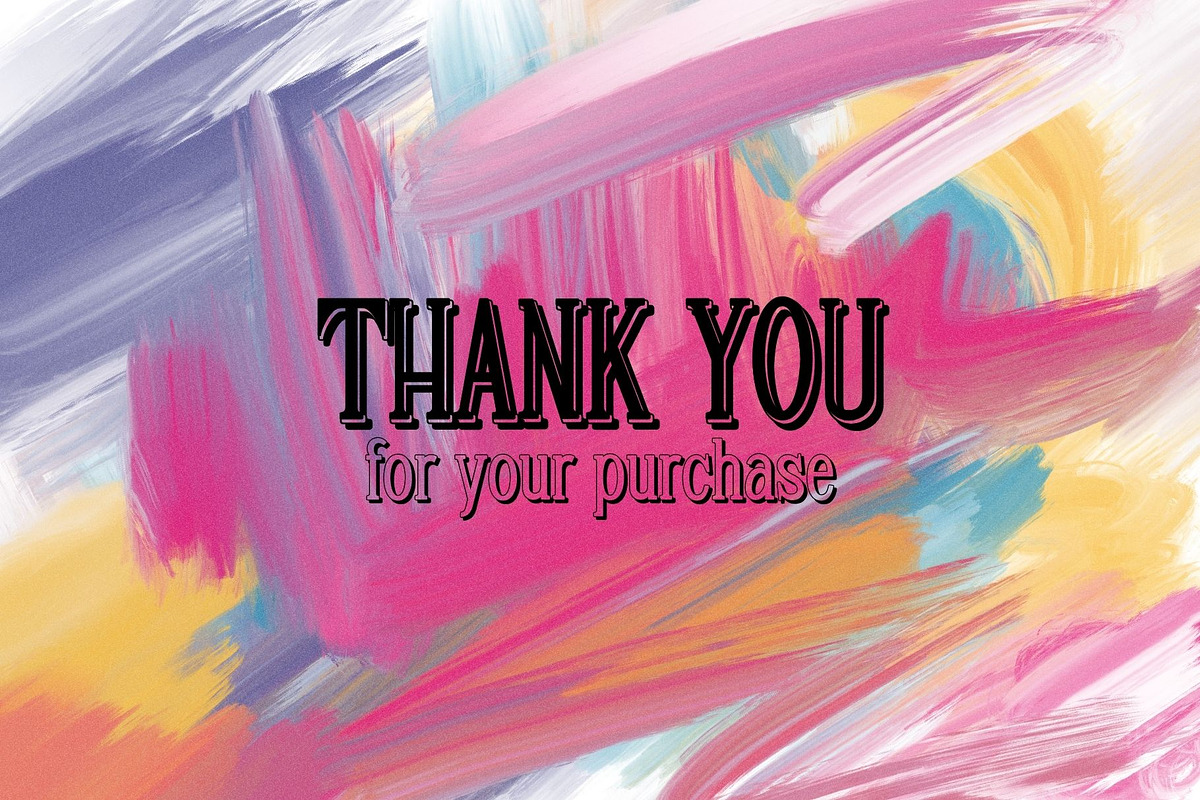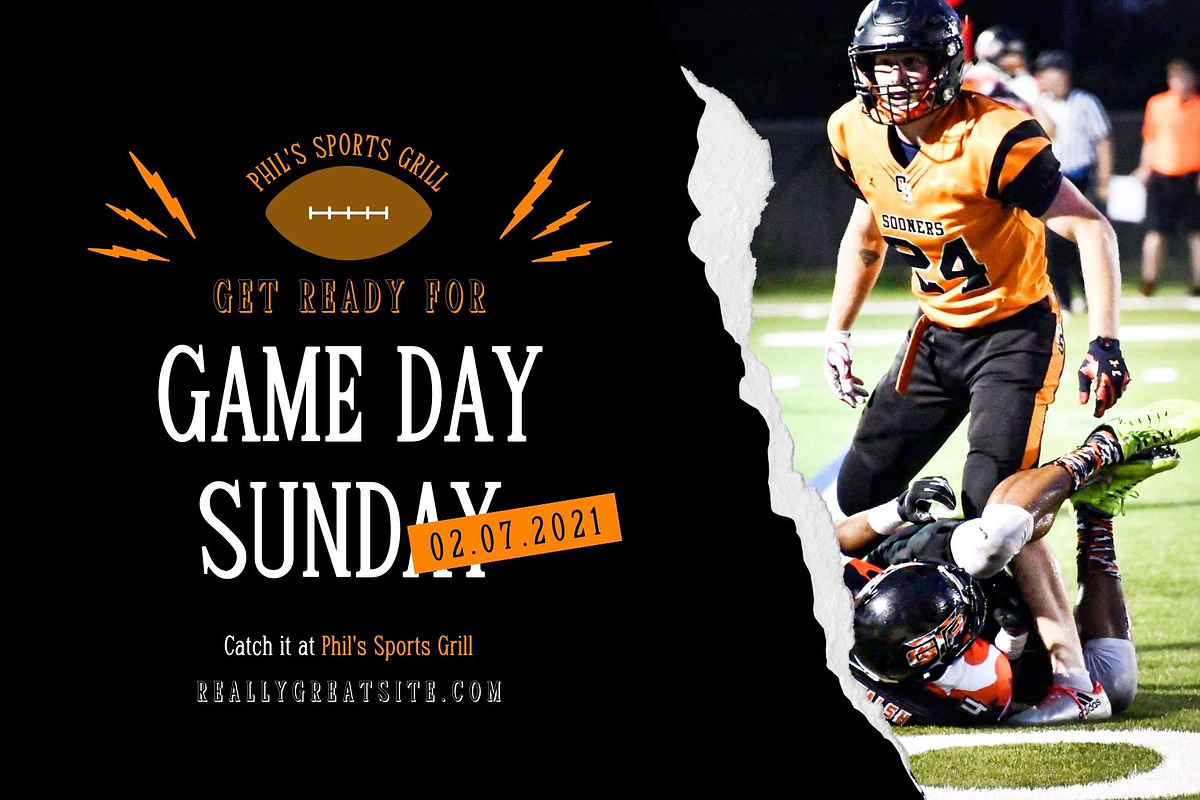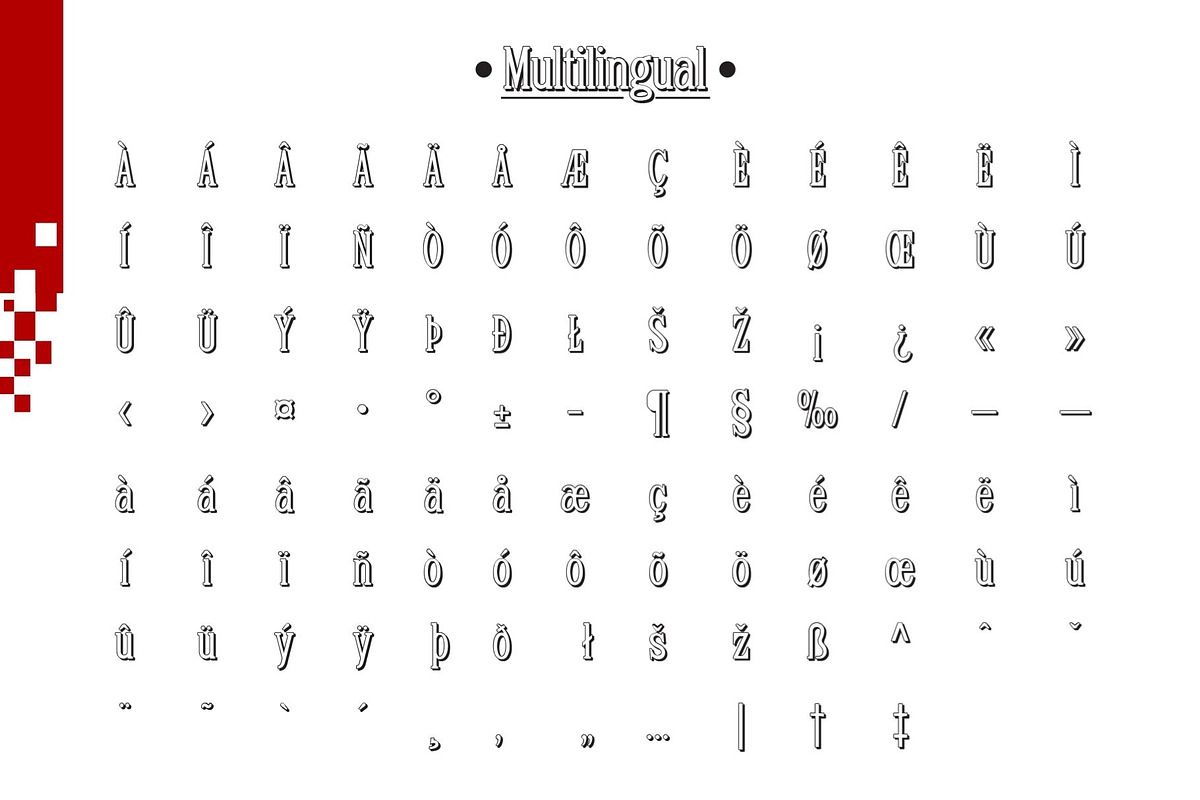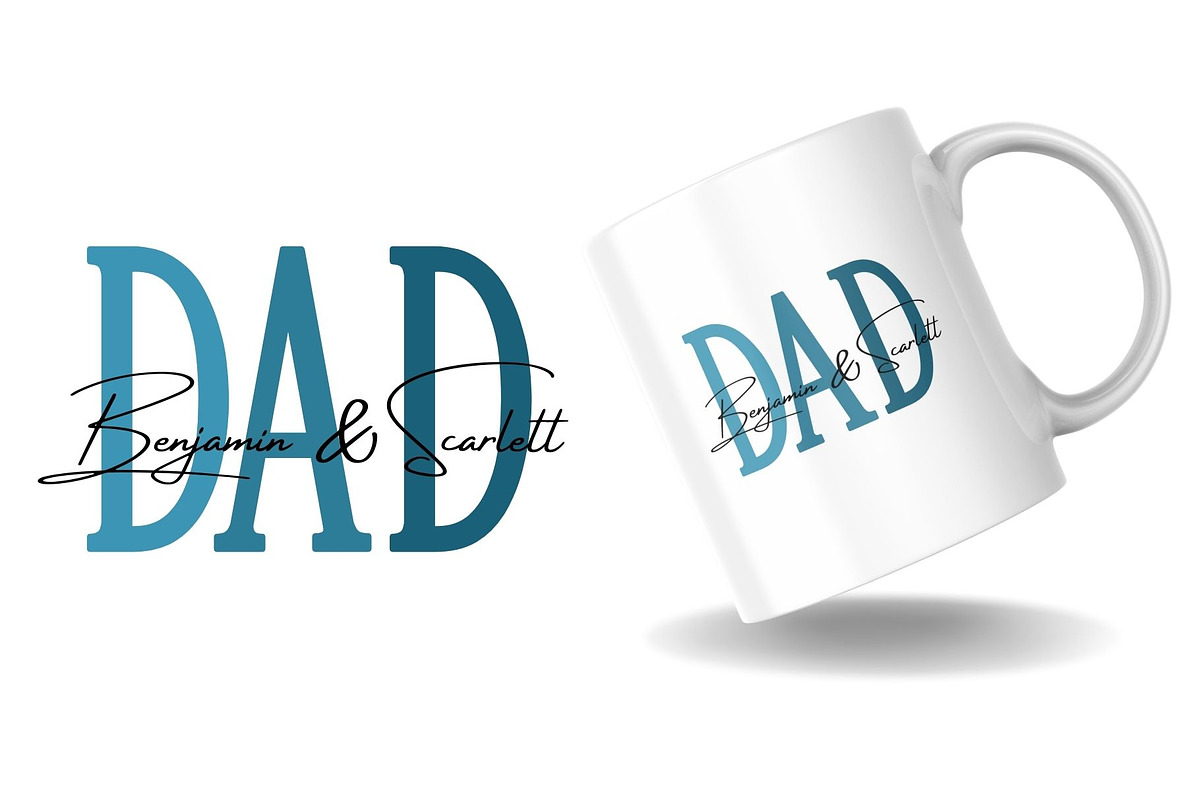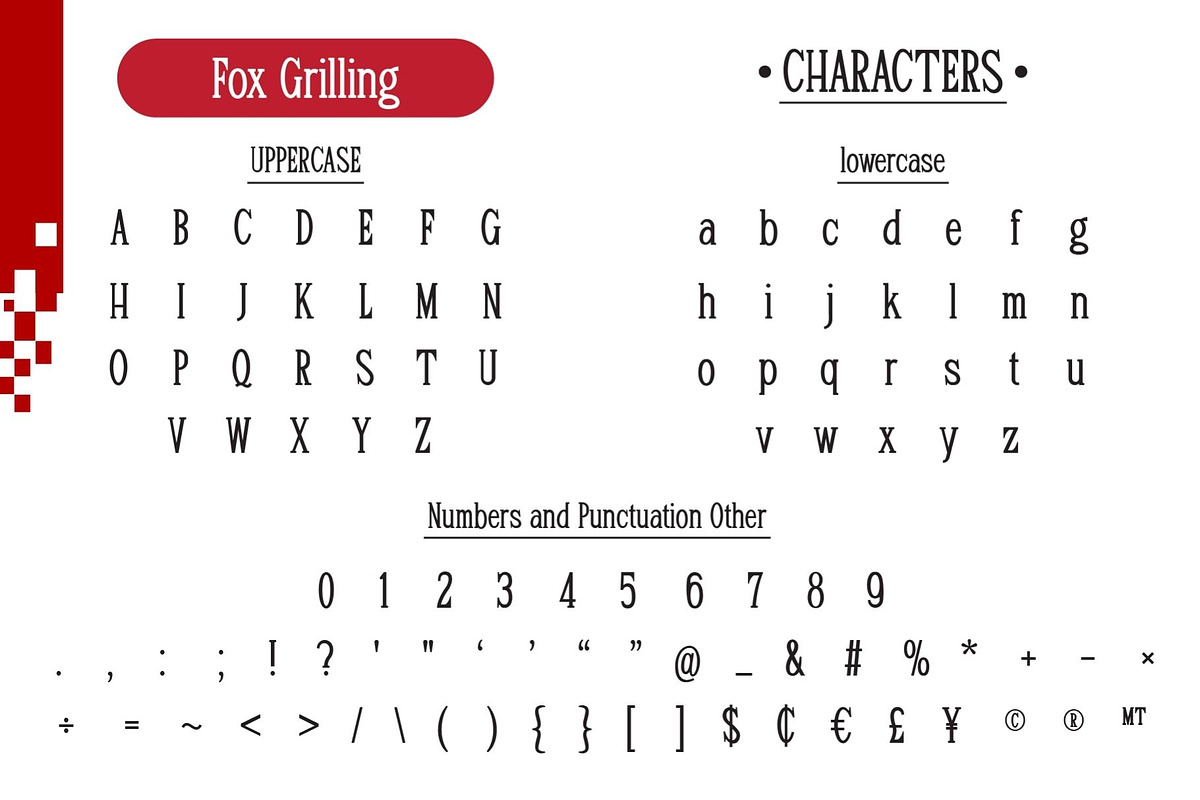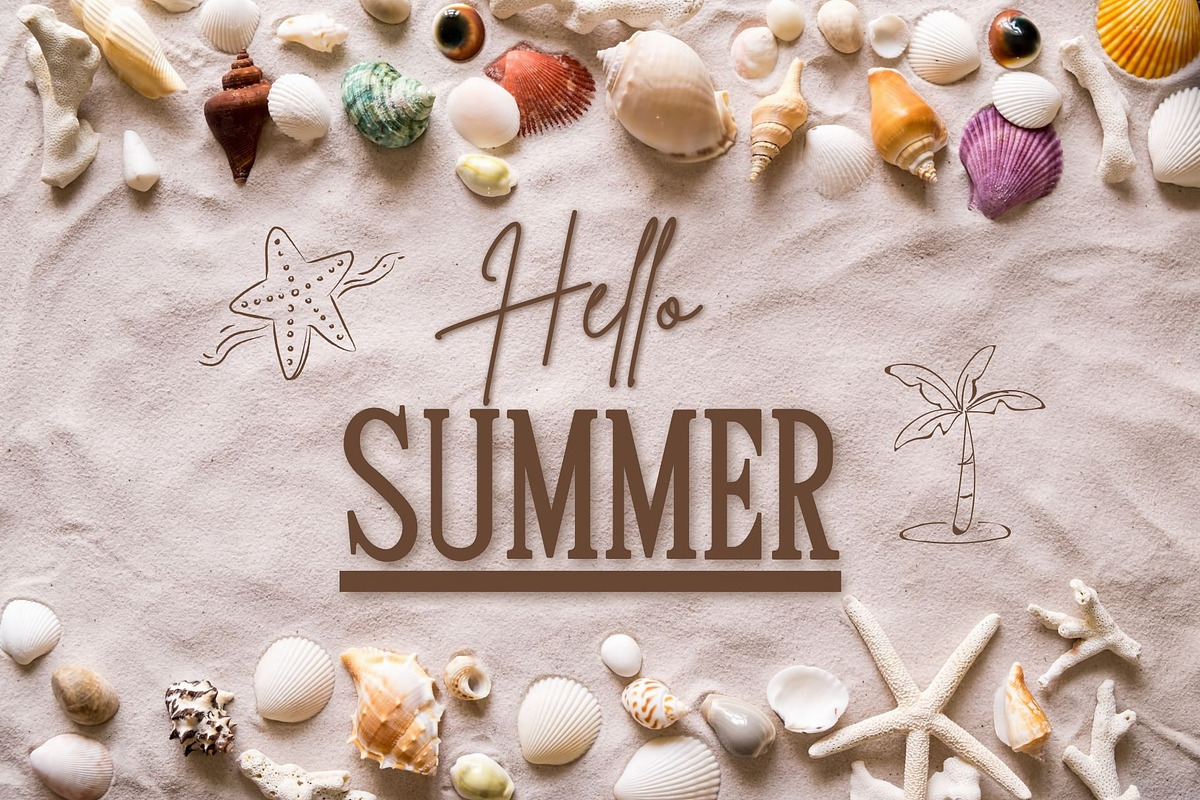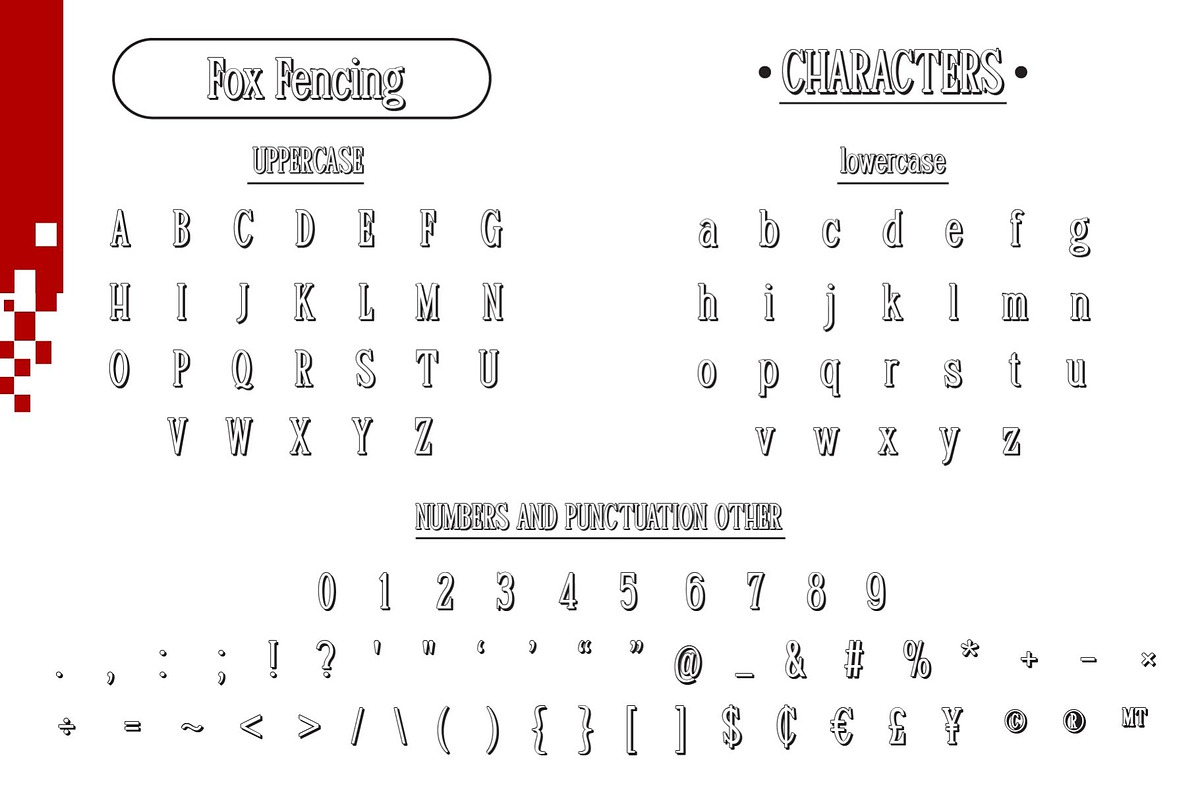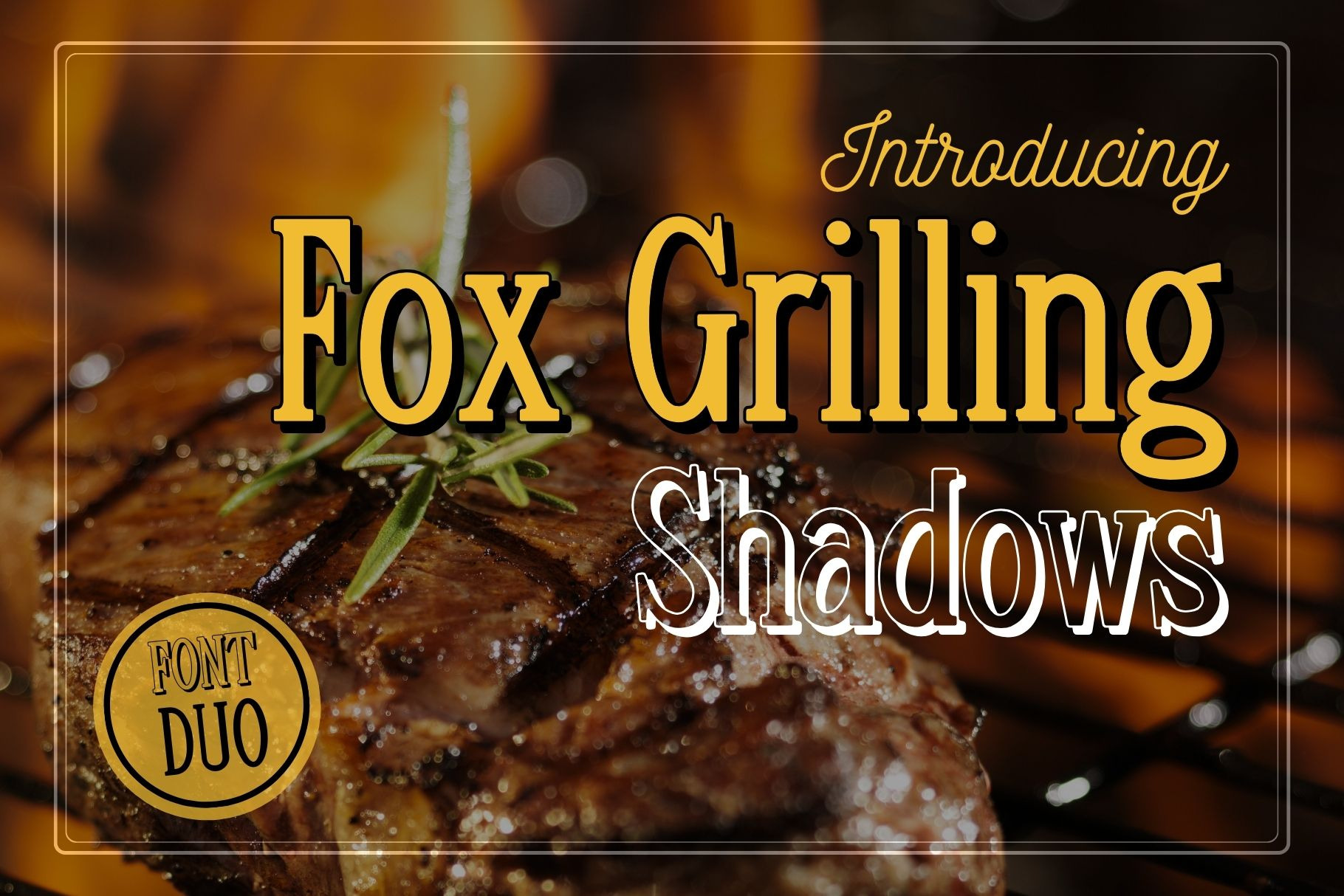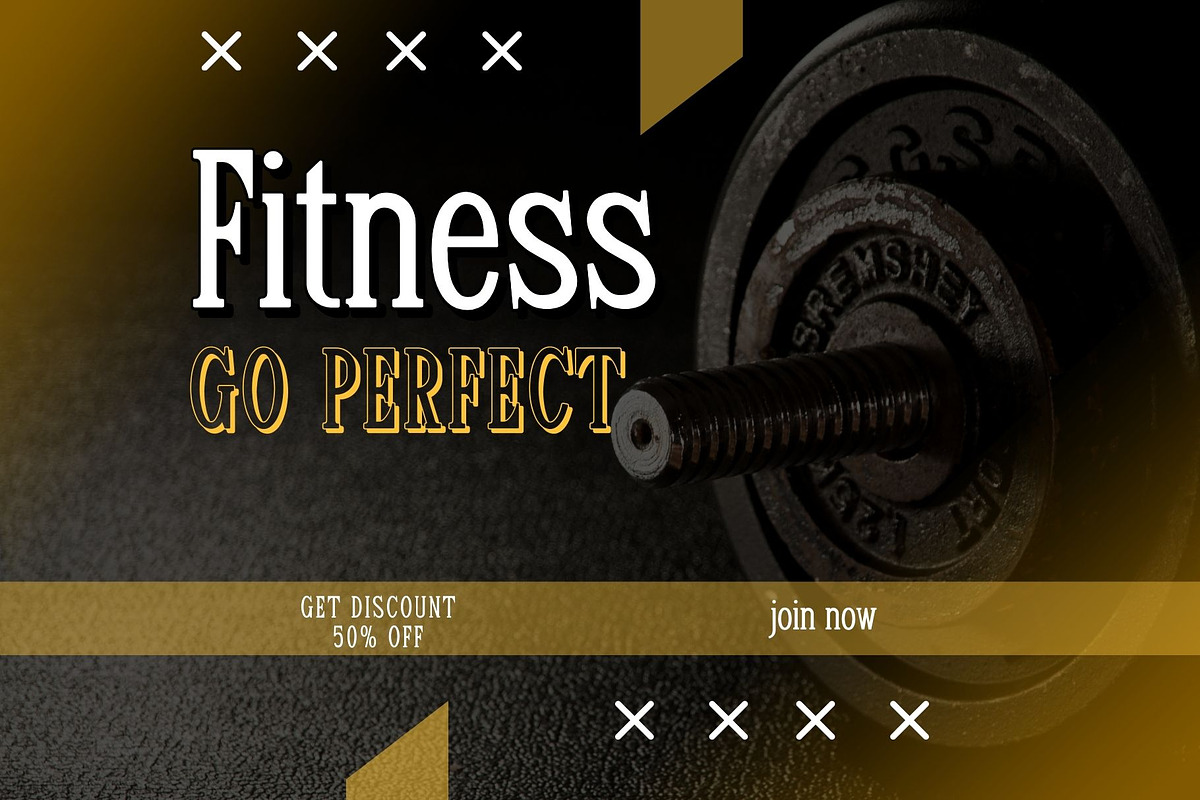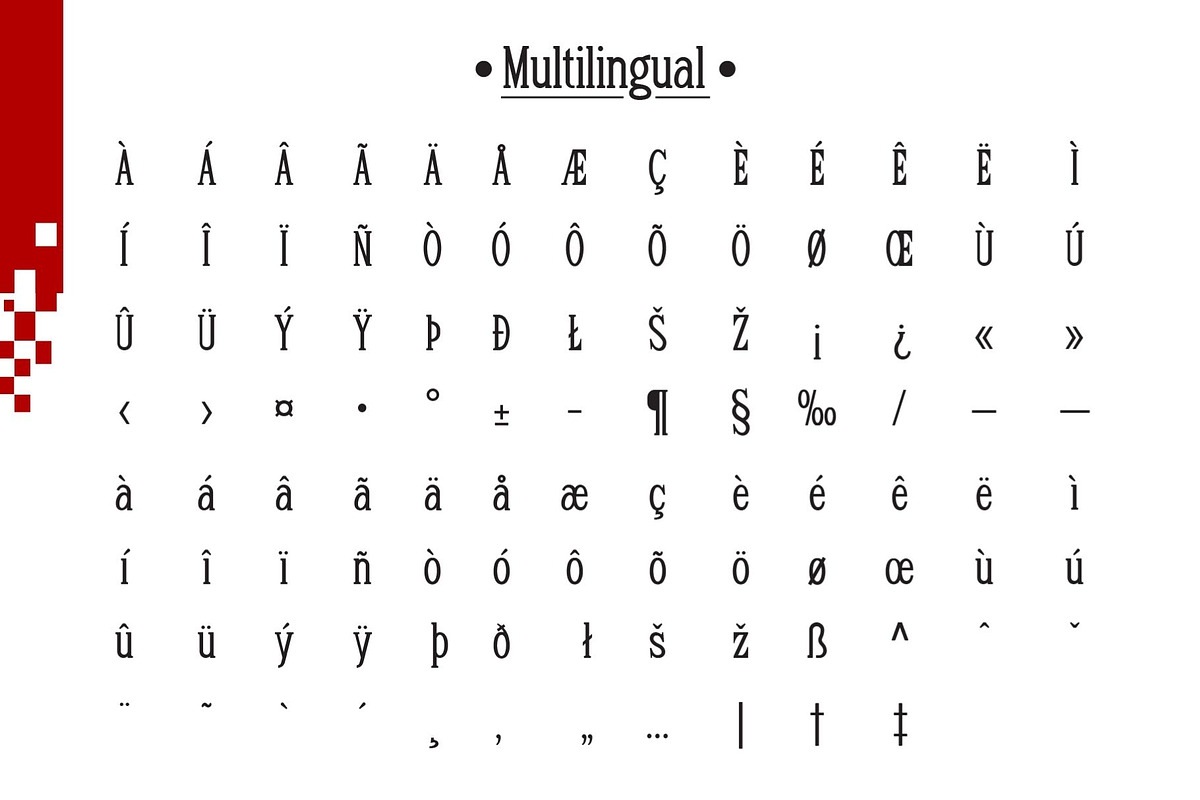
Fox Grilling Font Duo
Fox Grilling is a cool and modern slab serif font. This font offers both regular and shadows variations, this font is perfect for publications, menus, logos, business cards, or printed on t-shirts, this font will look outstanding on everything, no matter the topic. This font will be an incredible asset to your fonts’ library, as it has the potential to elevate any creation.